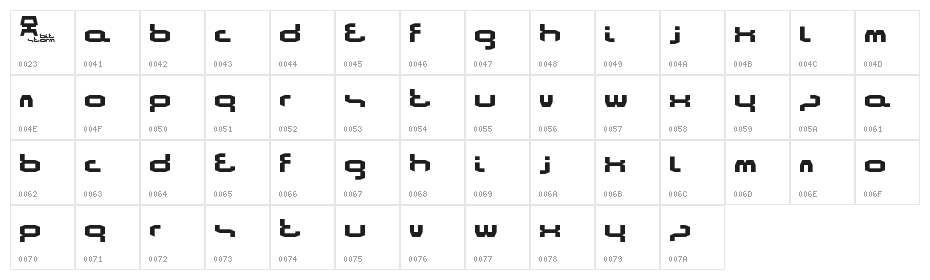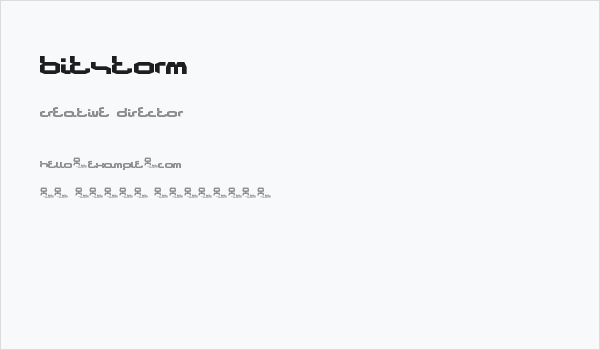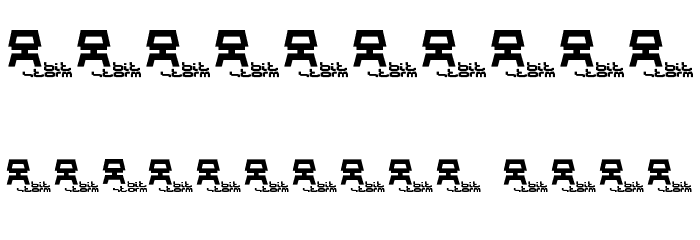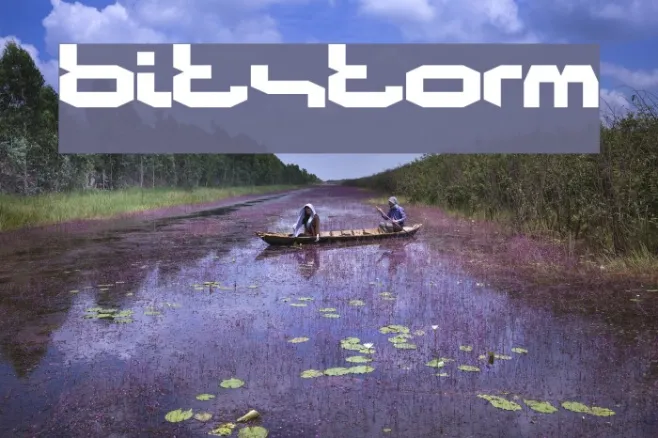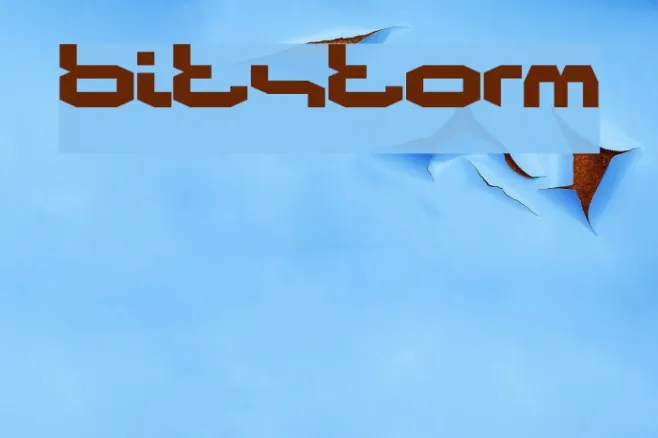
Bitstorm Font
Bitstorm Description
This font exhibits a bold, geometric style with a futuristic and digital aesthetic. The characters are constructed with sharp angles and straight lines, giving them a blocky, pixelated appearance reminiscent of early computer graphics. The uppercase and lowercase letters maintain a consistent height, contributing to a uniform look. The font's design is highly stylized, with unique character shapes that emphasize a modern, tech-inspired theme. The numerals and special characters follow the same angular design, ensuring visual coherence across all glyphs.
| Use Case | Logos, Headlines, Posters |
| Proposed Projects | Ideal for tech-related branding, video game titles, digital art projects, and futuristic-themed designs. |